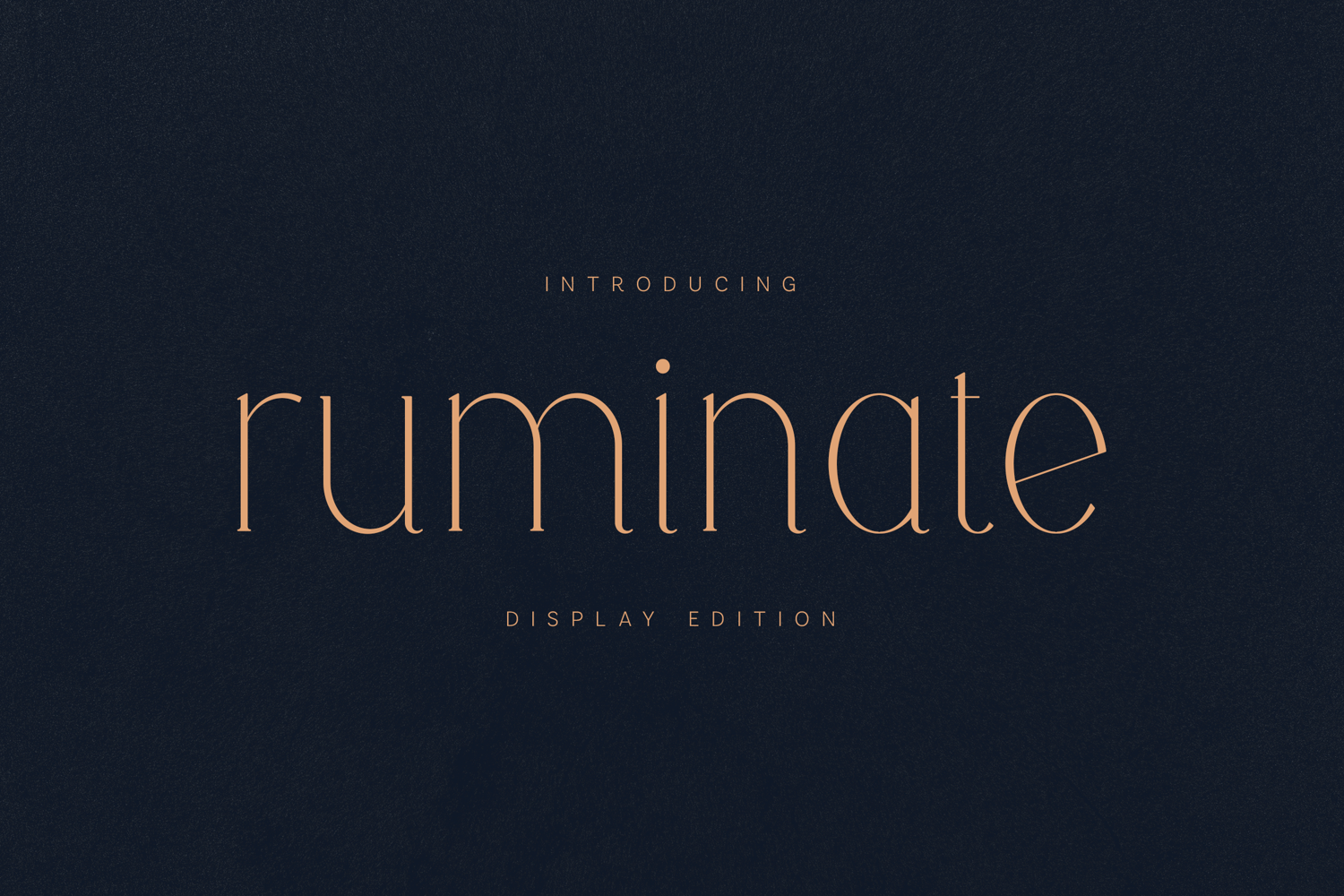
Ruminate Elegant Display Serif Font
Ruminate is an elegant display serif font designed for refined typography and thoughtful visual storytelling. With its slender proportions, soft contrast, and graceful curves, Ruminate conveys a calm, intelligent presence that feels both modern and timeless.
Perfect for editorial layouts, magazine titles, luxury branding, book covers, posters, cultural projects, and sophisticated headlines, Ruminate excels where restraint and elegance matter. Its delicate construction allows text to breathe, creating a sense of quiet confidence and premium quality.
The font’s subtle details and balanced rhythm make it ideal for large display use, while maintaining clarity and harmony across compositions. Ruminate pairs beautifully with minimal sans serifs or handwritten scripts for elevated, contemporary design systems.
This Display Edition is crafted specifically for headlines, titles, and expressive typography where mood and tone are essential.
Ruminate includes uppercase and lowercase letters, numerals, punctuation, symbols, and extensive multilingual support, making it suitable for international and professional use.
If you’re looking for a serif font that feels introspective, elegant, and quietly powerful, Ruminate offers refined typography with depth and intention.